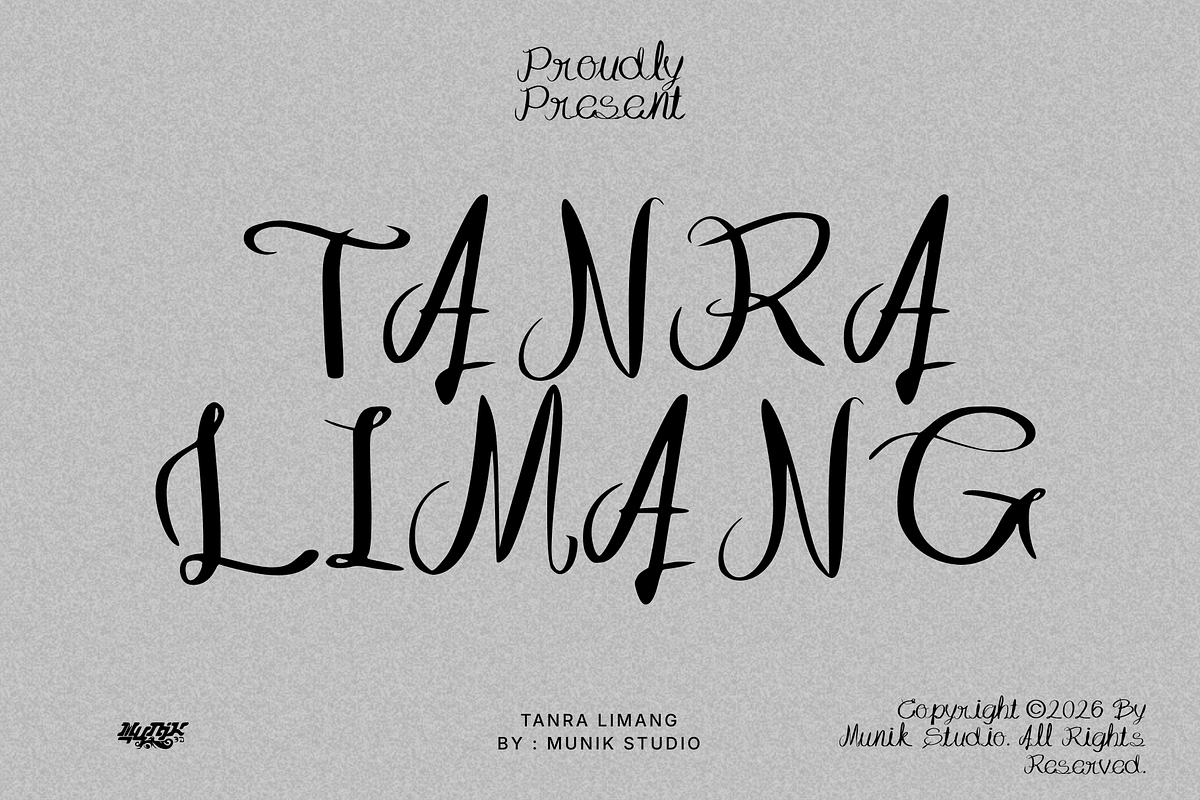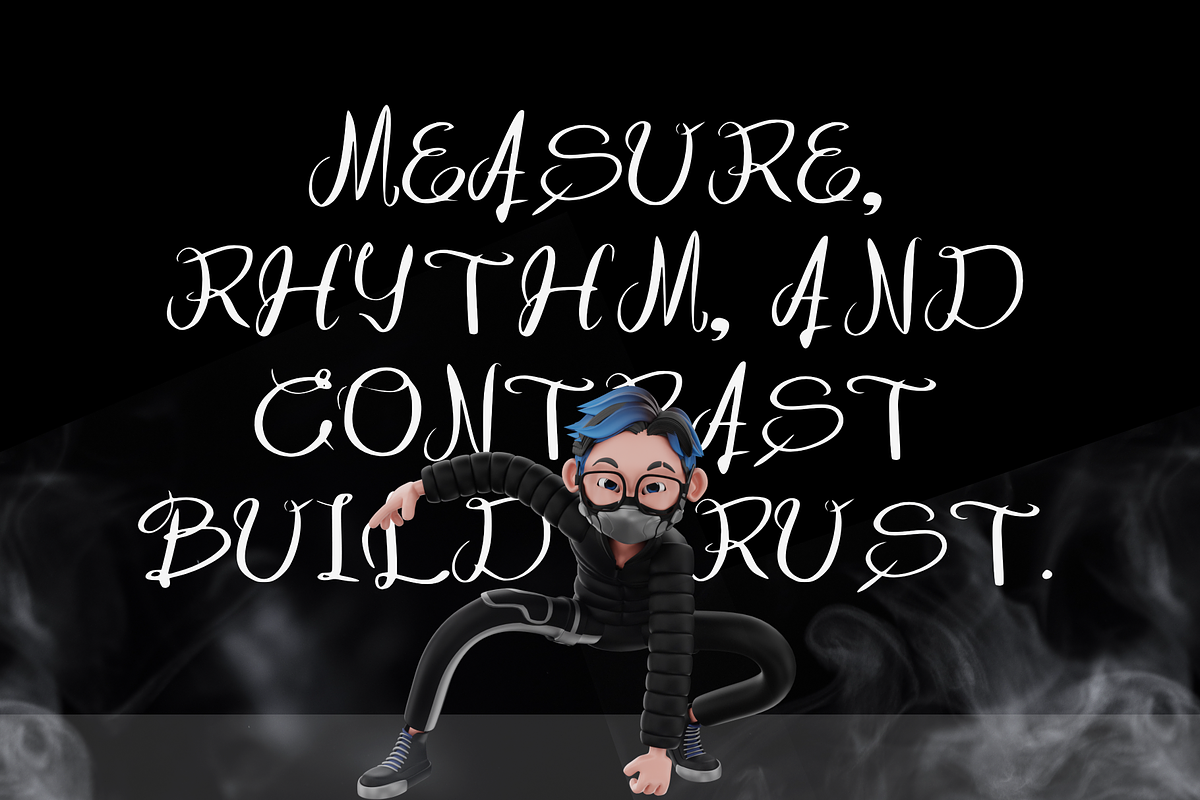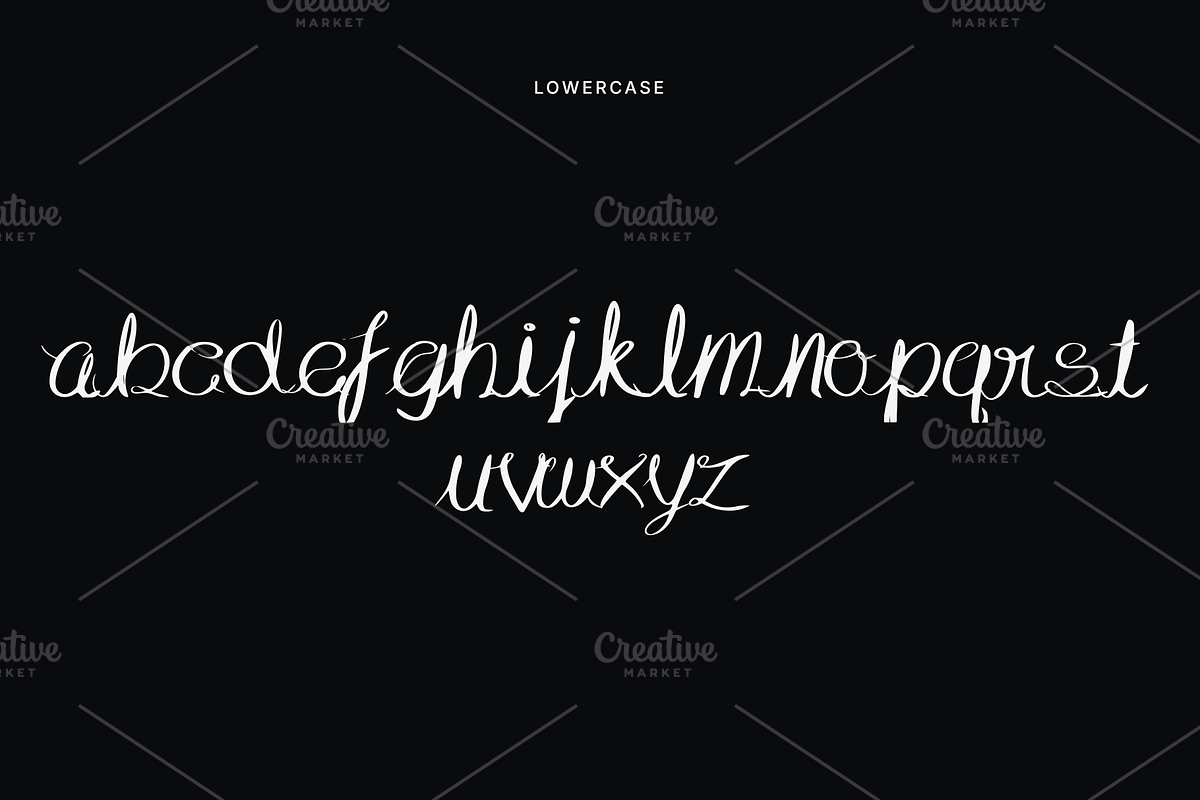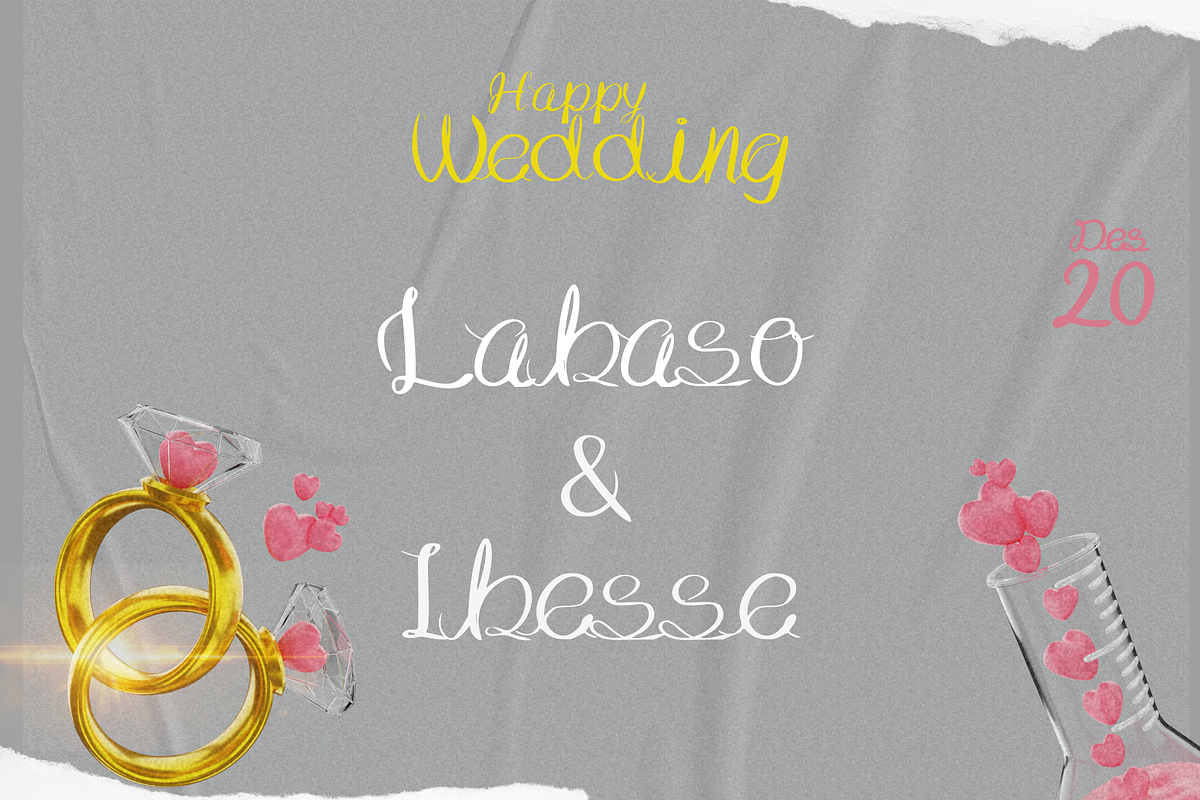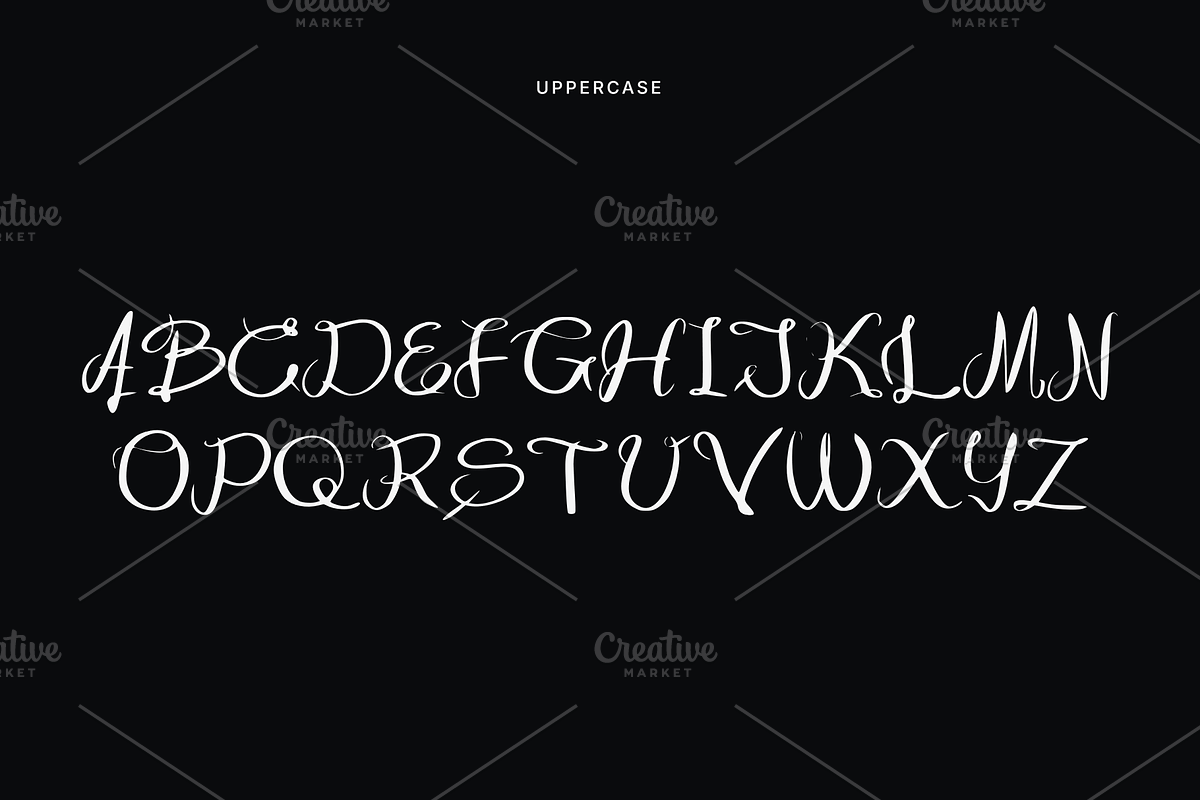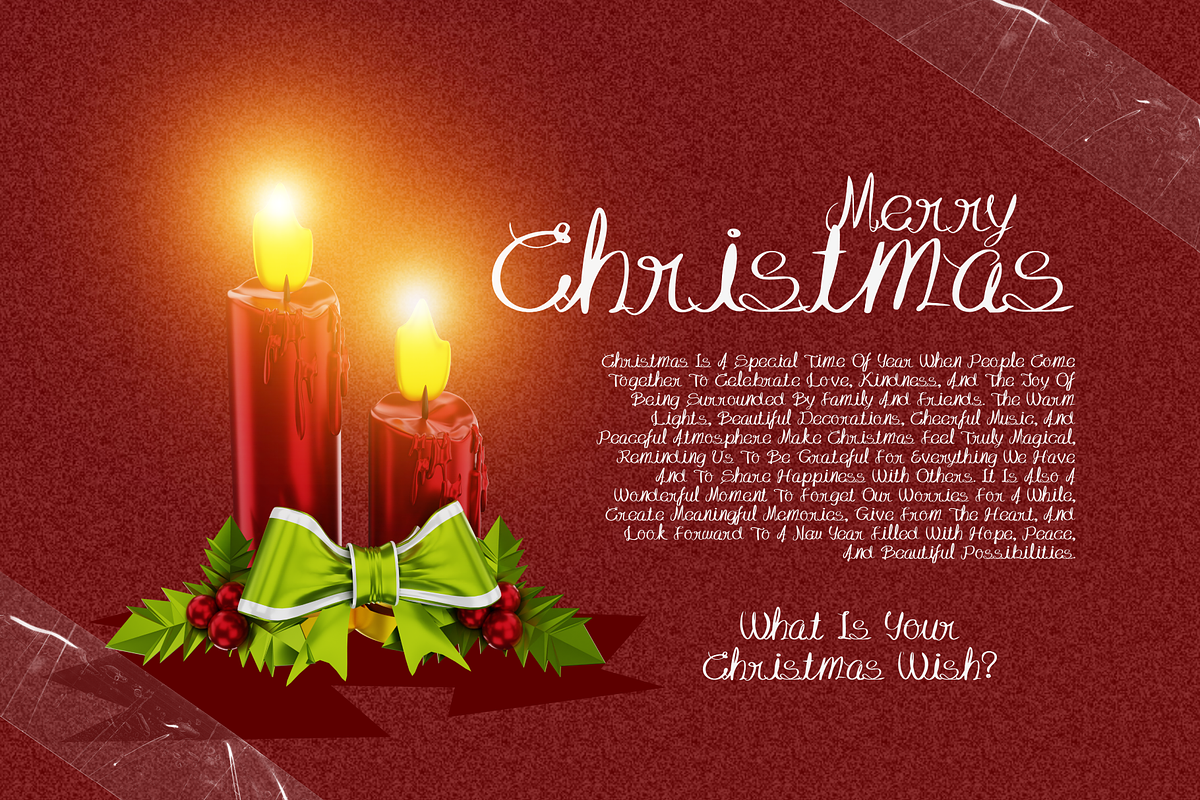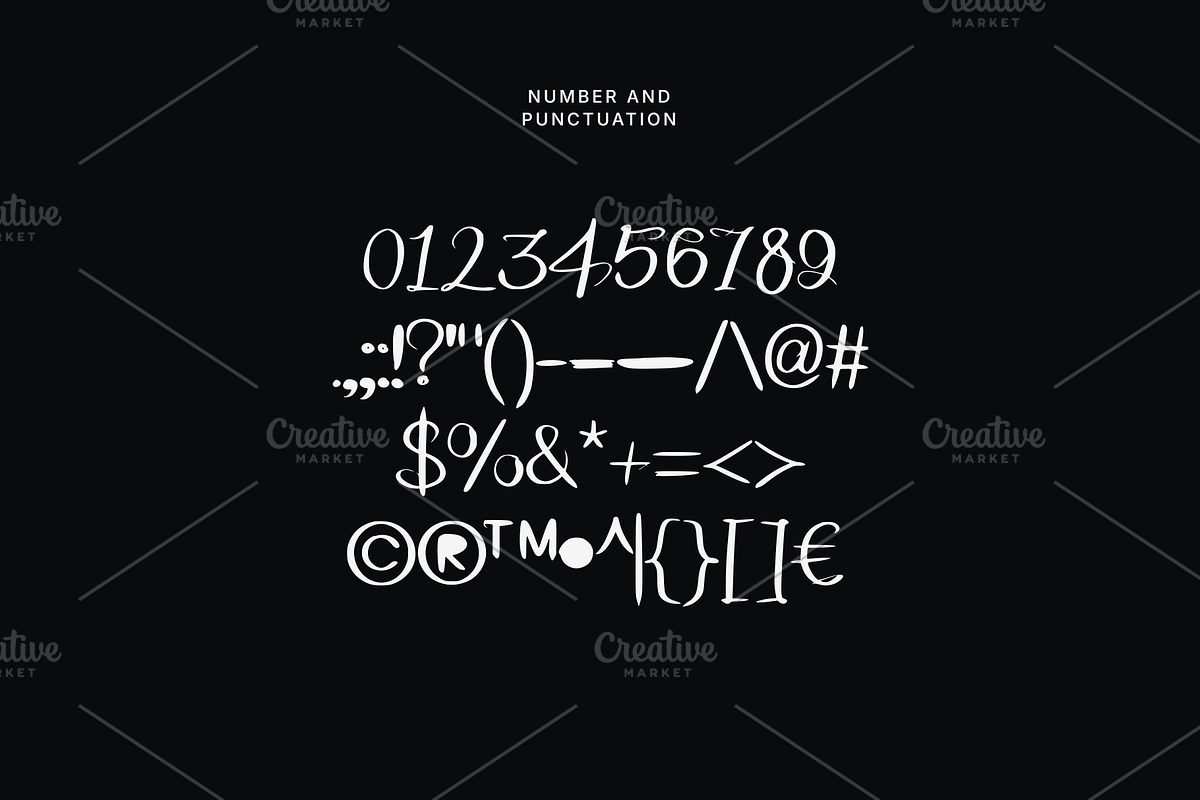
TANRA LIMANG
Tanra Limang – Elegant Modern Calligraphy Font
Tanra Limang is an elegant and expressive modern calligraphy font designed to bring a sophisticated handwritten touch to your creative projects. Featuring graceful strokes, dramatic swashes, beautiful letter connections, and a stylish high-contrast appearance, Tanra Limang creates a luxurious and artistic impression while maintaining a natural handwritten feel.
Perfect for wedding invitations, branding, logos, stationery, fashion designs, social media graphics, greeting cards, packaging, posters, quotes, and editorial designs. Its distinctive character makes it especially suitable for projects that need an elegant, romantic, feminine, and premium aesthetic.
Tanra Limang is designed to work beautifully as a display font, allowing you to create memorable headlines, names, titles, and personalized designs with an authentic calligraphy style. The decorative flourishes add extra personality and make the font stand out in both elegant and contemporary compositions.
Tanra Limang is a great choice for designers, stationery creators, wedding designers, branding professionals, and anyone looking for a sophisticated modern calligraphy style with a unique artistic character.